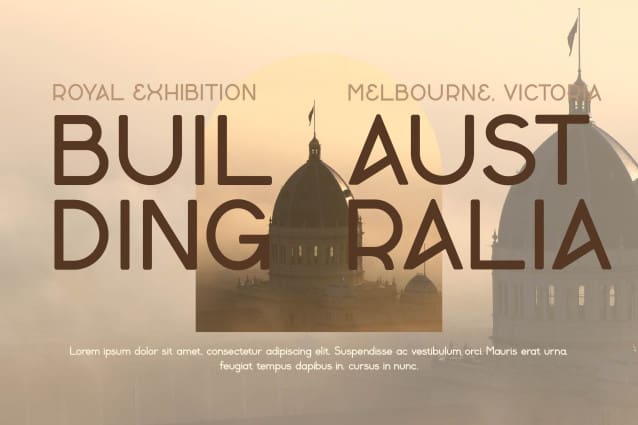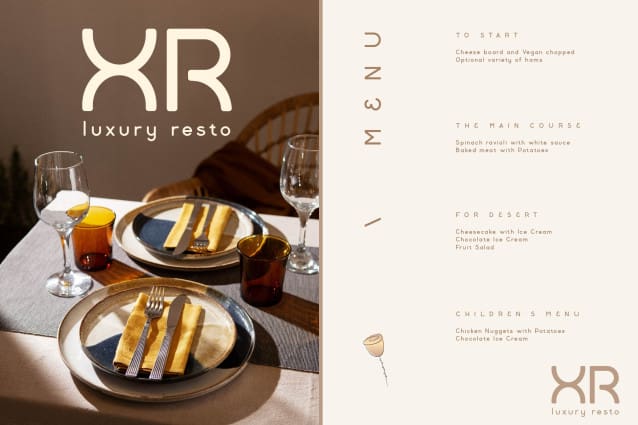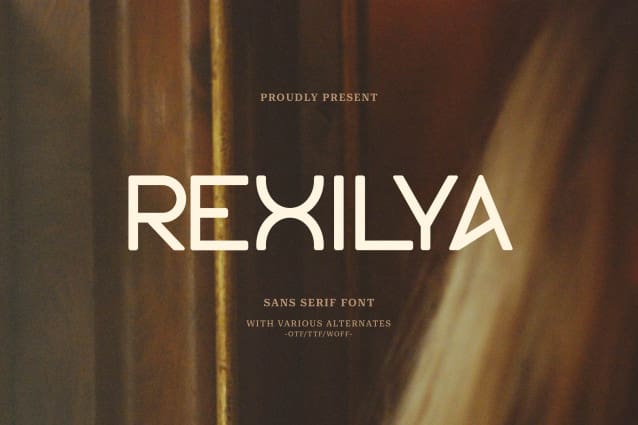
Rexilya Font
Rexilya Font – Modern Sans Serif. This typeface is a combine of bold, playful, and fun to play with. You can have a serious tone with an elegant vibe, but you can use this on a fun and casual occasion.
Rexilya Font – Modern Sans Serif is perfect for branding projects, logo, wedding designs, social media posts, advertisements, product packaging, product designs, label, photography, watermark, invitation, stationery and any projects that need modern sans serif taste.